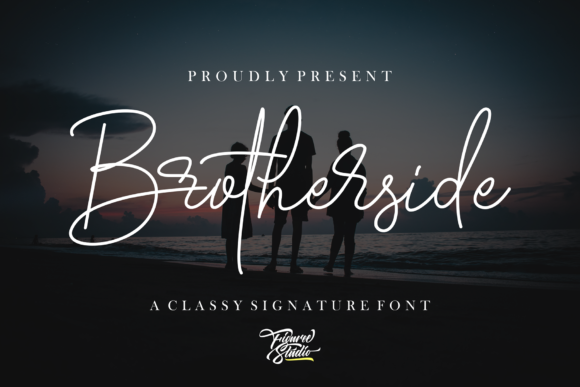
Unleash Your Handwritten Charm with the Brotherside Font
There’s nothing quite like the feeling of scribbling down ideas in a notebook, the sound of your pen gliding across the page, and the thrill of watching your thoughts take shape. It’s a moment of pure creativity, where the world seems to slow down, and all that matters is the connection between you and your art. But what if you could capture that same feeling in your digital designs?
That’s where the Brotherside Font comes in – a signature font that lets you achieve a handwritten feeling with ease. Whether you’re a graphic designer, a writer, or a social media enthusiast, this font is the perfect tool to add a personal touch to your work. With its classic style, Brotherside Font is a valuable asset for designers looking to inject some personality into their projects.
- Unique Characteristics: Brotherside features a unique blend of modern and retro elements, making it suitable for a wide range of design applications.
Brotherside Font Review
As a designer, I was excited to dive into the Brotherside font. Here’s my honest take.
- The Brotherside font has a unique and modern aesthetic that sets it apart from other fonts. It’s perfect for brands and designers looking for something fresh.
- The font is highly legible, making it ideal for body text, headings, and even display typography.
- The font supports a wide range of languages, making it a great option for global brands and companies.
- The font may not be the best choice for fine typography, as some characters can appear slightly irregular or uneven.
- The font’s unique aesthetic may not appeal to everyone, and some designers may find it too modern or trendy.
- The font’s range of weights and styles is somewhat limited, which may make it less versatile than other fonts.
Overall, I think the Brotherside font is a solid choice for designers looking for a modern and legible font. While it may have some limitations, its unique aesthetic and wide language support make it a great option for many projects.
Tips for Getting the Most Out of Brotherside Font
For a more vintage look, use Brotherside Font in conjunction with distressed textures and grunge effects.
To create a bold statement, use a large font size and a bold weight.
Brotherside Font is ideal for:
- Creating vintage-inspired designs.
- Adding a touch of nostalgia to modern designs.
- Creating bold, eye-catching headlines.
What is the recommended font size and line height for optimal readability with the Brotherside Font?
For optimal readability, it is recommended to use a font size between 12pt and 18pt, with a line height of 1.2 to 1.5 times the font size. This will provide a clear and comfortable reading experience for your audience. However, font size and line height may vary depending on the specific design requirements and audience needs.